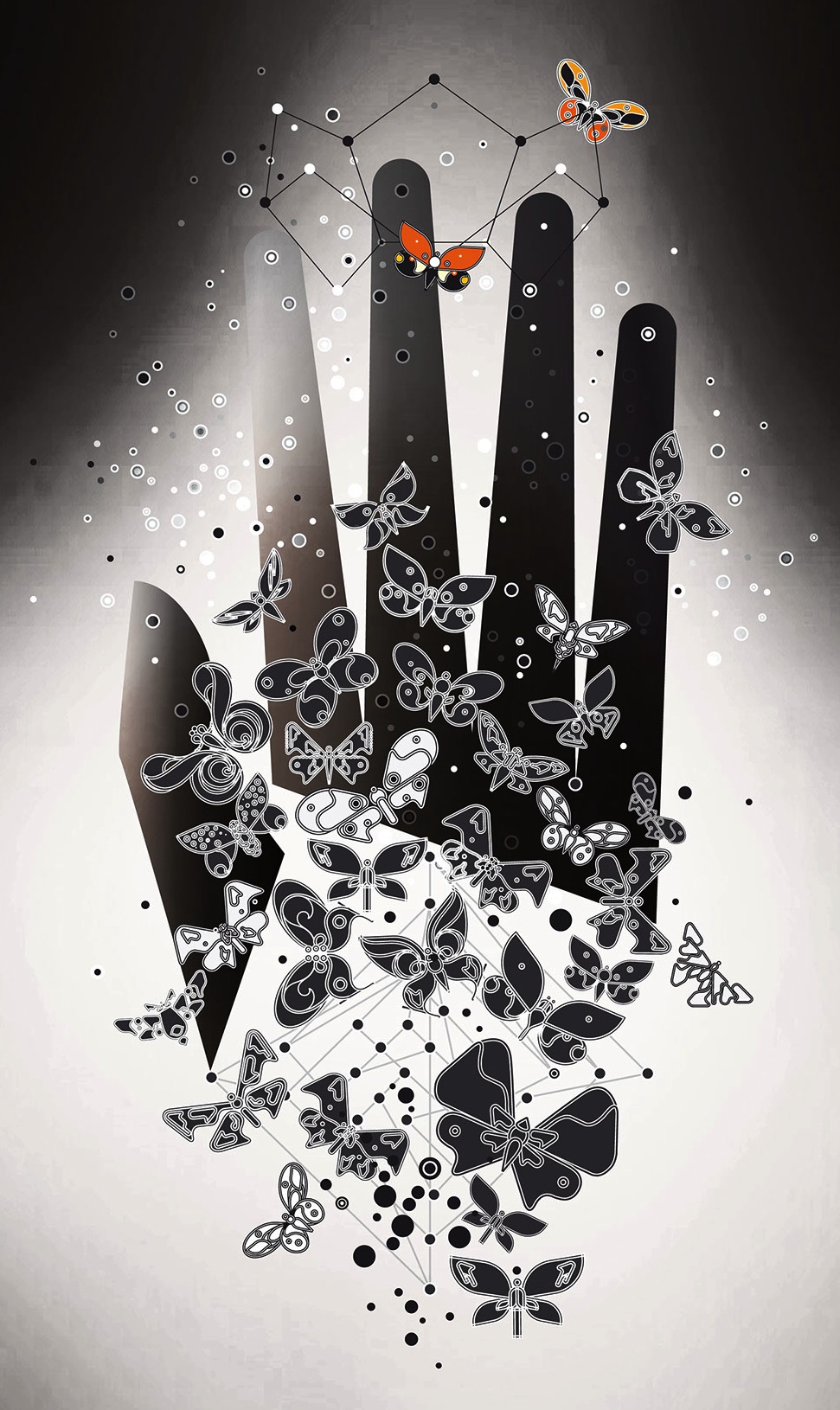
Eric Palliet
Paris-based designer who created several experimental geometric typefaces in a series called Monoide (2014). He also created Butterfly Alphabet (2014) and many awe-inspiring techno illustrations. Behance link.